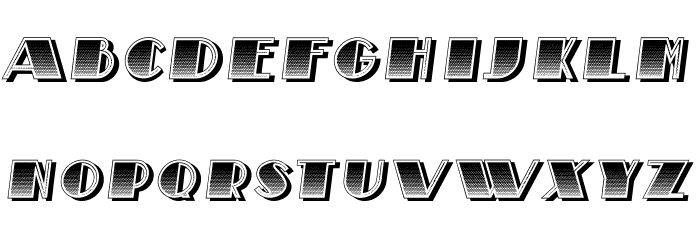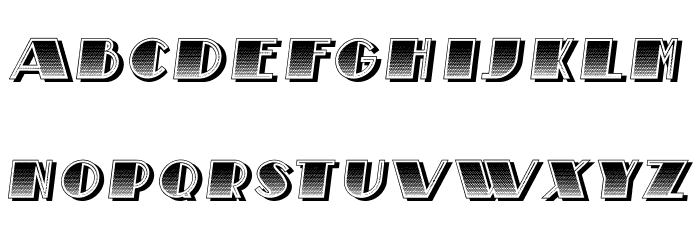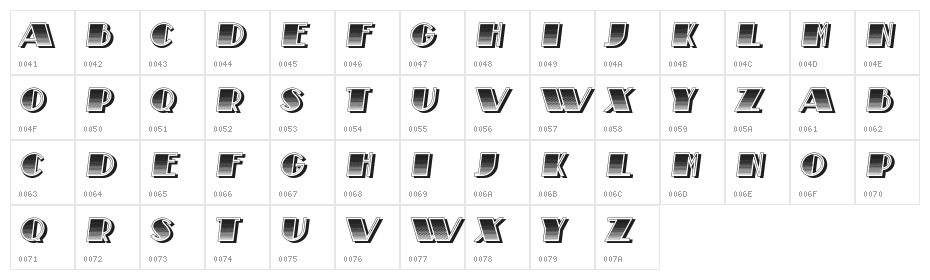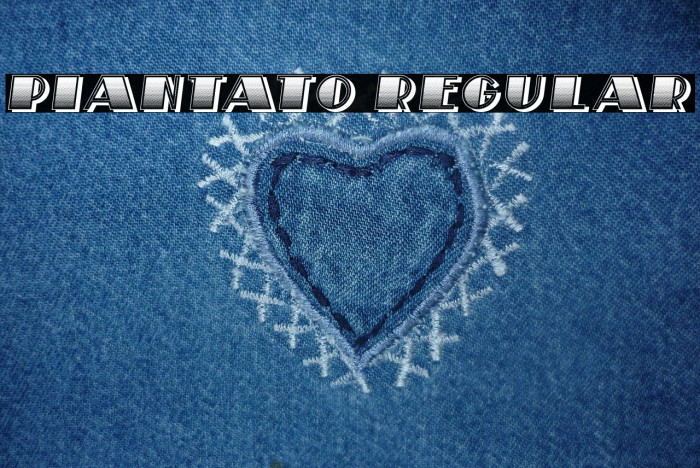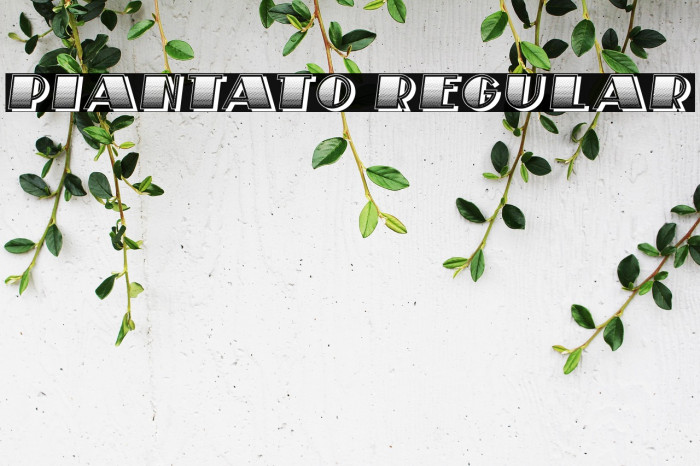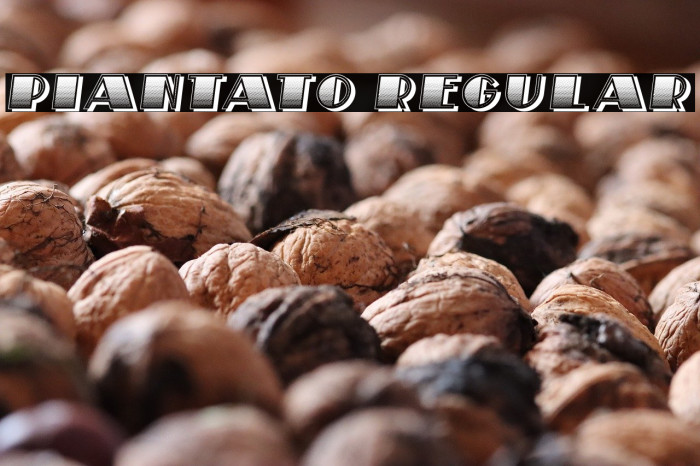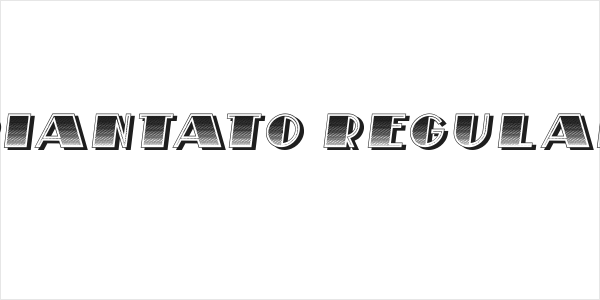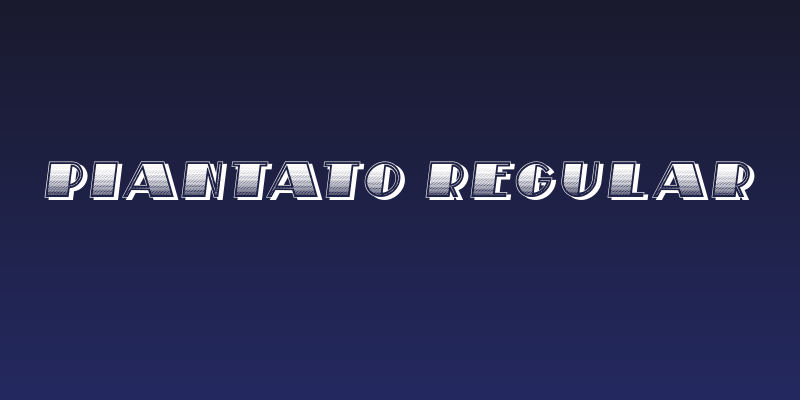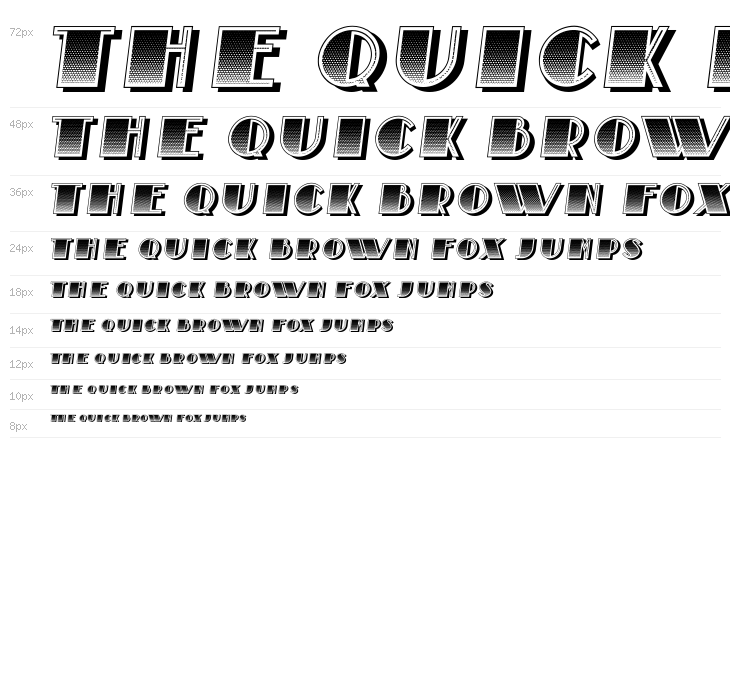
Piantato Regular Font
This font features a bold, decorative style with a strong 3D effect, achieved through the use of diagonal lines and shadows. The uppercase letters are designed with a sense of depth and dimension, making them stand out prominently. The font has a vintage feel, reminiscent of classic signage or retro posters, and is characterized by its thick strokes and distinct outlines. The characters are uniformly spaced, providing a balanced and cohesive appearance. The overall design is eye-catching and ideal for making a statement in any project.
A bold, decorative font with a vintage 3D effect and strong outlines.
- Font: Piantato Regular
- Proposed Projects: Ideal for retro posters, vintage signage, branding, and eye-catching headlines.
- Overall Style: Vintage